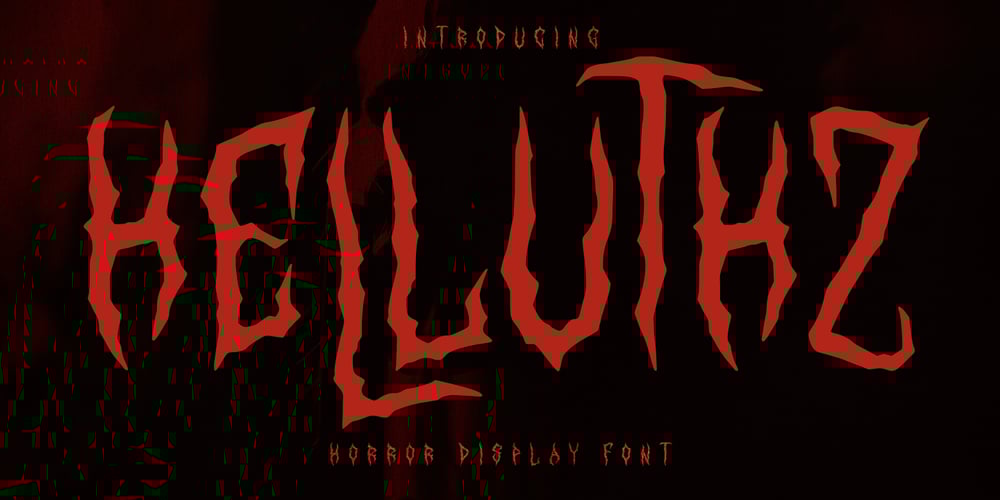
MC Helluthz Font Family was designed by Gilang Maulana and published by Maulana Creative. MC Helluthz contains 1 styles and family package options. Give your designs an authentic brush handcrafted feel. “Helluthz Horror Display Font” is perfectly suited to stationery, logo, typography quotes, magazine or book cover, website header, flyer, clothing, branding, packaging design, music event, black metal event and more.